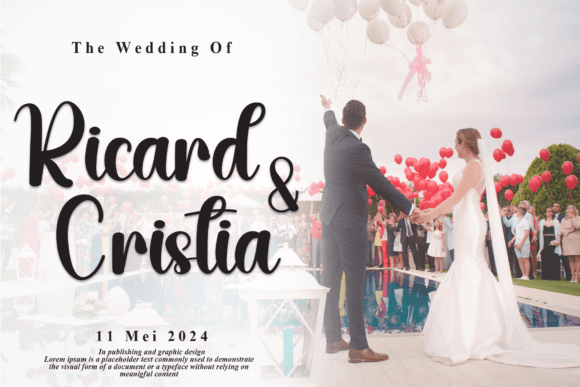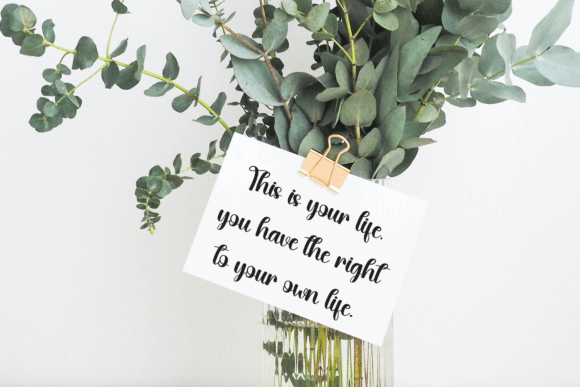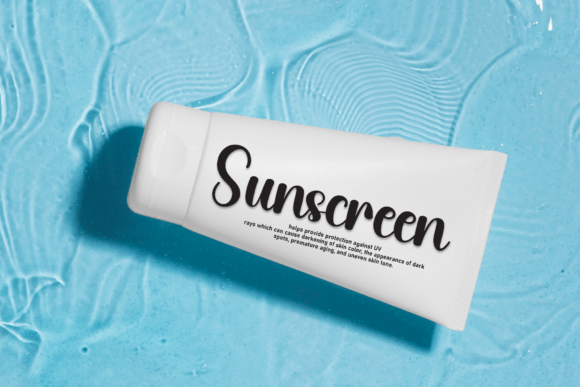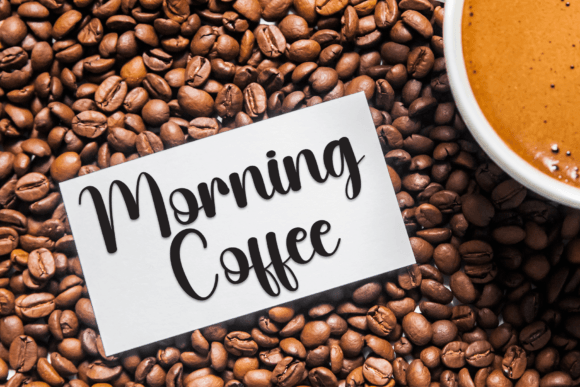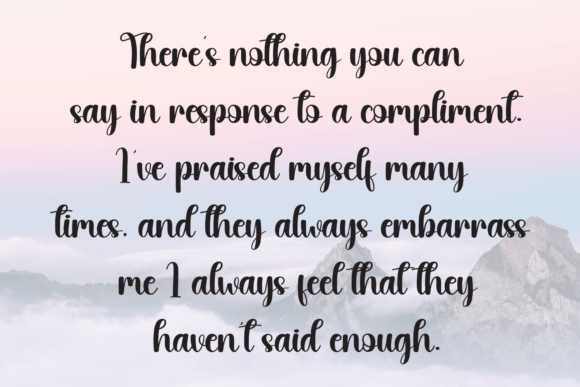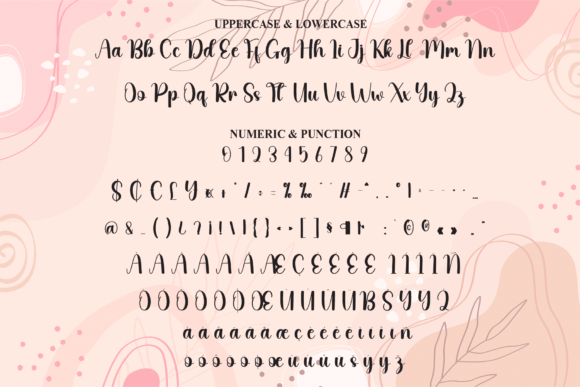
The Joy of Whimsical Typography: Discovering the Barbie Boho Font
Have you ever stumbled upon a font that instantly sparks your creativity and transports you to a world of endless possibilities? For designers, finding the perfect font can be a game-changer. It’s that moment when the perfect combination of style, personality, and flair comes together to elevate your design from ordinary to extraordinary. For many, that moment arrives with the Barbie Boho Font – a delightful, handwritten typeface that’s as charming as it is versatile.
With its adorable and amiable qualities, the Barbie Boho Font is the perfect companion for designers seeking to add a touch of whimsy to their creations. Whether you’re crafting wedding invitations, greeting cards, or simply looking to inject some joy into your designs, this font is sure to bring a smile to your face and a spring to your step.
Unleash the fun in every design detail with the Barbie Boho Font – a true treasure for designers and typography enthusiasts alike.
Key Features of Barbie Boho Font
- Unique Characteristics: The Barbie Boho Font features a unique blend of bohemian and feminine elements, with intricate details and ornaments that evoke a sense of free-spirited elegance.
- Font Style: This font is a script font with a flowing, handwritten feel that is perfect for creating eye-catching headlines, titles, and other display text.
Barbie Boho Font Review
Overall, I think the Barbie Boho Font is a lovely, playful addition to any design project. It’s perfect for creating a whimsical and feminine atmosphere. ✨ The rounded edges and soft lines of the font give it a gentle, approachable feel.
Some of the things that work well with this font include:
- Its versatility: the Barbie Boho Font can be used for a wide range of projects, from wedding invitations to social media graphics.
- Its whimsical feel: the font is perfect for adding a touch of personality to your designs.
- Its readability: the font is easy to read, even at smaller font sizes.
- Limited font weights: the Barbie Boho Font only comes in a few font weights, which can limit its use in certain design situations.
- Not suitable for formal designs: the font’s playful feel may not be suitable for more formal or professional designs.
- May not be as customizable as some other fonts.
Overall, I think the Barbie Boho Font is a fun and creative addition to any design project, but it may not be the best choice for every situation.
For best results, use the Barbie Boho Font in combination with other bohemian-inspired elements, such as floral patterns and earthy colors.
Experiment with different font sizes and styles to create a unique and eye-catching design.
The Barbie Boho Font is perfect for:
Wedding invitations and decorations
Bohemian-inspired blog posts and social media graphics
Handmade product labels and packaging
Alternatives to Barbie Boho Font
Great Vibes is a handwritten, cursive font that is perfect for adding a touch of elegance and sophistication to designs. It is ideal for use in branding, invitations, and other creative projects where a personal touch is desired. Great Vibes is a more refined and polished alternative to Barbie Boho Font, with a more consistent and fluid writing style.
Luckiest Guy Font
Luckiest Guy is a modern, handwritten font that is great for use in designs where a casual, laid-back vibe is desired. It is perfect for use in social media posts, advertising, and other projects where a fun and playful tone is needed. Luckiest Guy is a more edgy and modern alternative to Barbie Boho Font, with a more dynamic and expressive writing style.